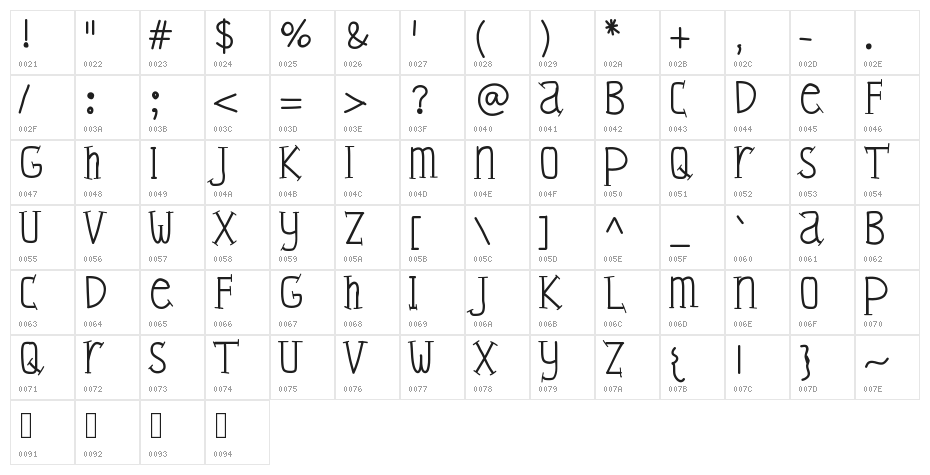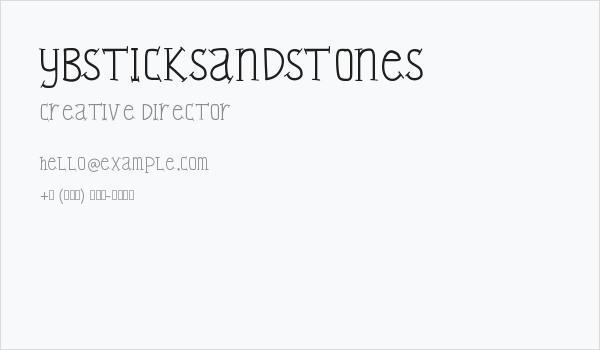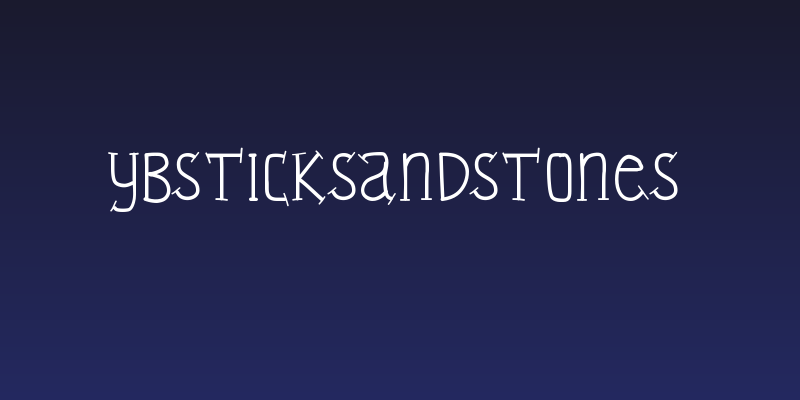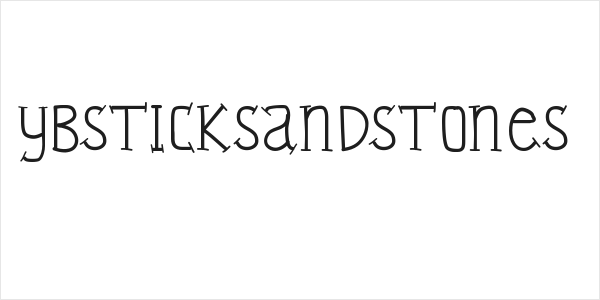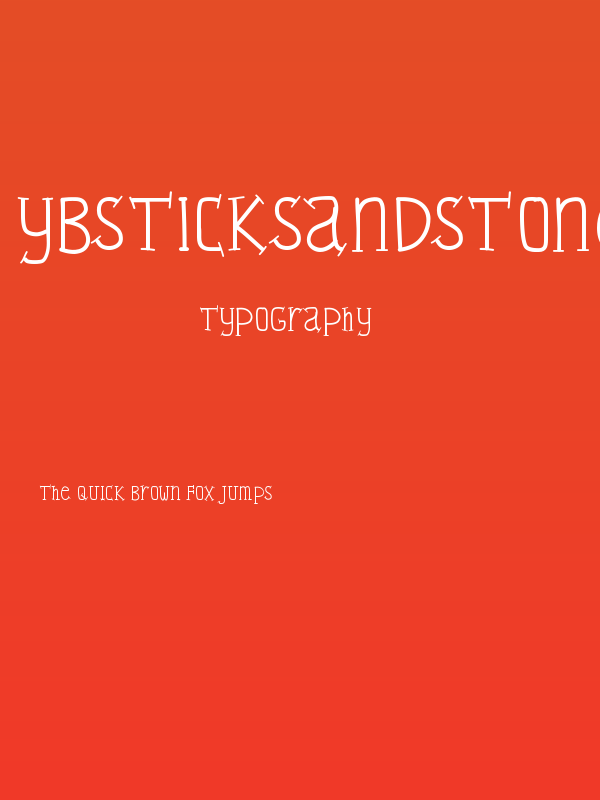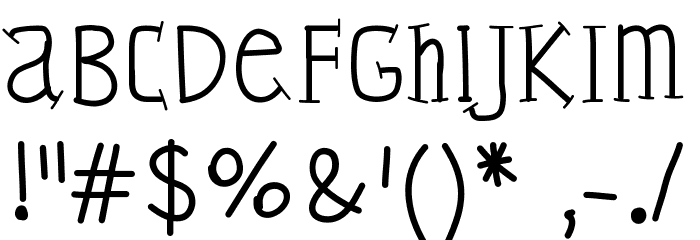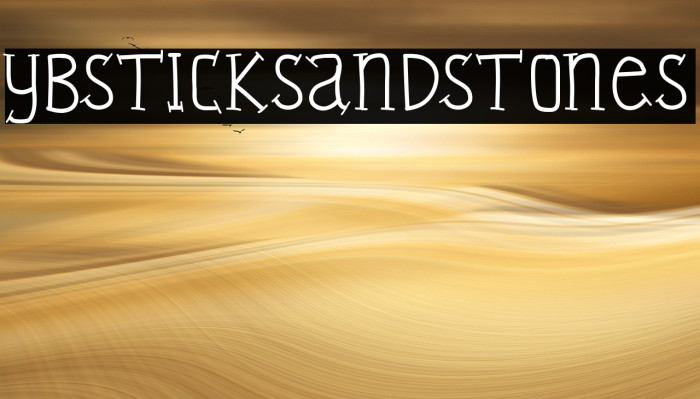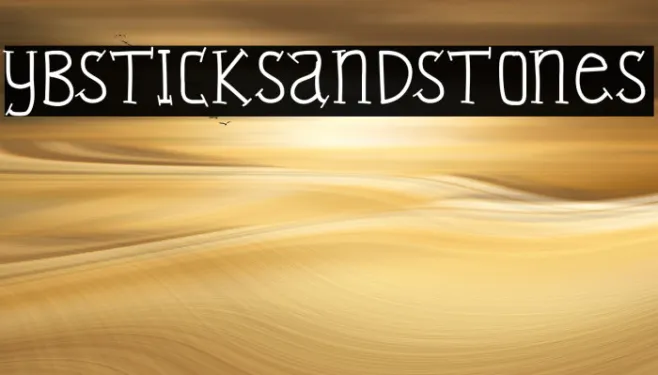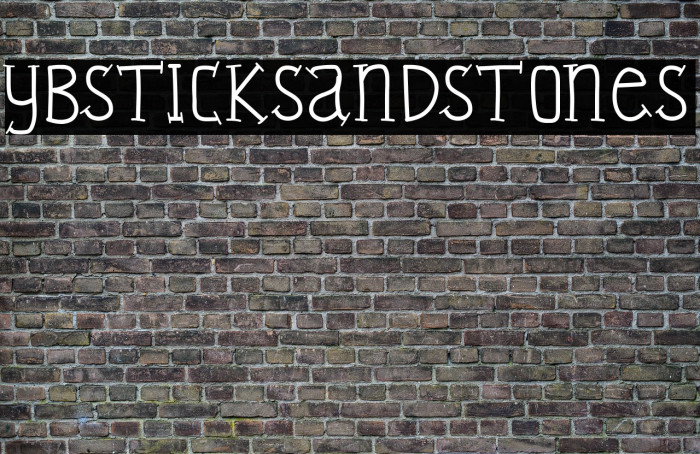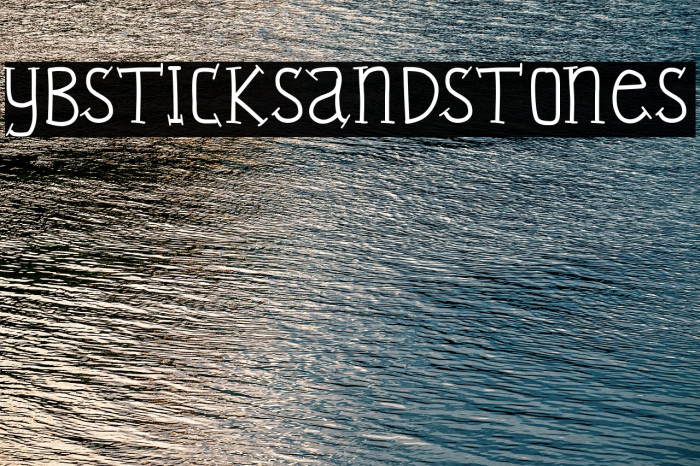
YBSticksAndStones Font
YBSticksAndStones Description
This font features a playful and whimsical design with a hand-drawn aesthetic. The characters are tall and narrow, with uneven strokes that give it a casual and informal appearance. The uppercase and lowercase letters maintain a consistent style, with slight variations in stroke width that add to its charm. The numbers and special characters are designed to match the playful nature of the alphabet, making it suitable for creative and artistic projects. The overall look is reminiscent of doodles or sketches, making it ideal for projects that require a fun and approachable feel.
| Proposed Projects | Ideal for children's books, greeting cards, playful branding, and creative posters. |